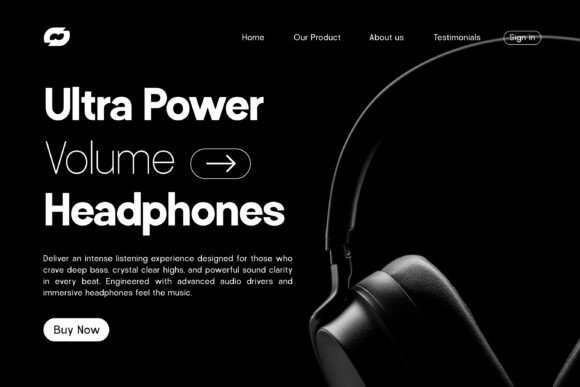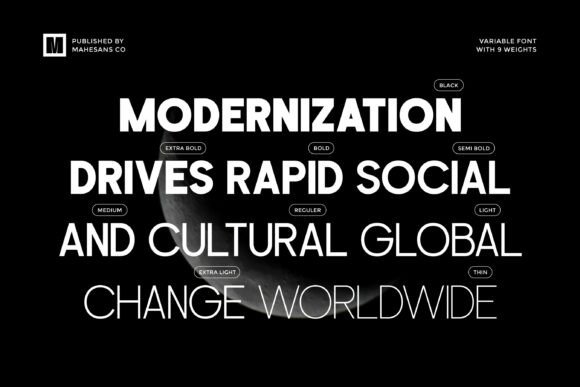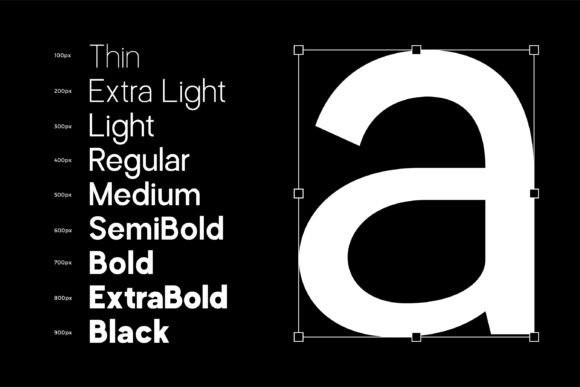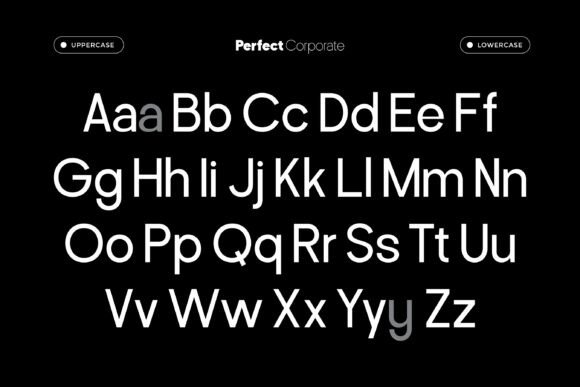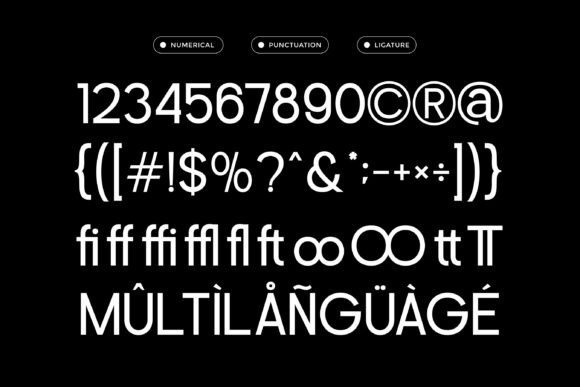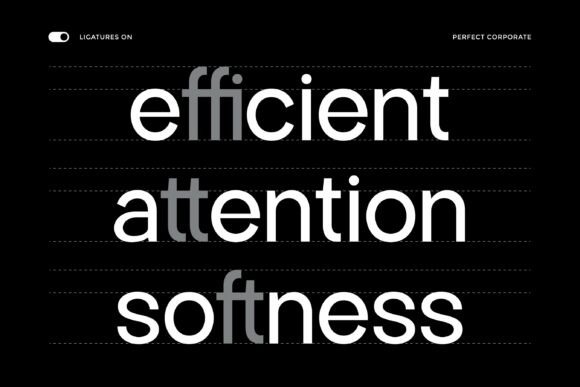
Introduction to Perfect Corporate Font
Perfect Corporate is a modern geometric sans serif typeface designed to deliver clarity, consistency, and professional impact across a wide range of design applications.
Crafted for today’s corporate landscape, this versatile font family blends clean structure with subtle visual softness, making it ideal for branding, editorial layouts, web interfaces, presentations, and business communications With a full range of 9 carefully balanced weights from Thin to Black, Perfect Corporate gives you complete typographic control for everything from bold headlines to refined body text.
Key Features of Perfect Corporate Font
Why Choose Perfect Corporate Font?